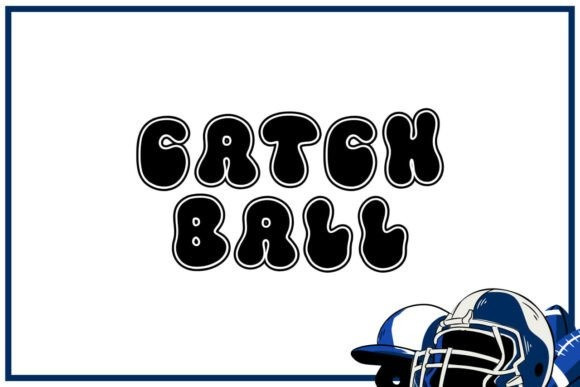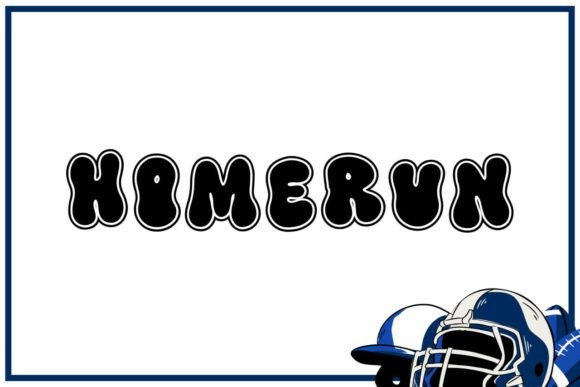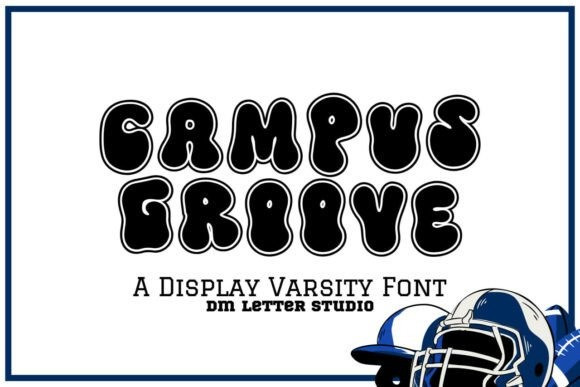
Campus Groove Font
Campus Groove Font blends varsity confidence with a smooth, feel-good rhythm. Letters are bold and upright, yet rounded enough to feel friendly. Because spacing is tuned for headlines, words snap into place on shirts, banners, stickers, and thumbnails. Use it for spirit wear, clubs, pep rallies, game-day posts, and creator brands that want school energy with modern flair.
Where Campus Groove Font shines
Set punchy phrases like “Game Day,” “Campus Crew,” or city initials. Then add double strokes, stitch edges, or soft shadows to echo real varsity patches. Since the forms are sturdy, vinyl cuts and screen prints stay crisp on jerseys, caps, and hoodies. As a result, you can launch full sets for teams, camps, and tournaments with less editing. Plus, the rounded rhythm keeps titles clear on mobile and small labels.